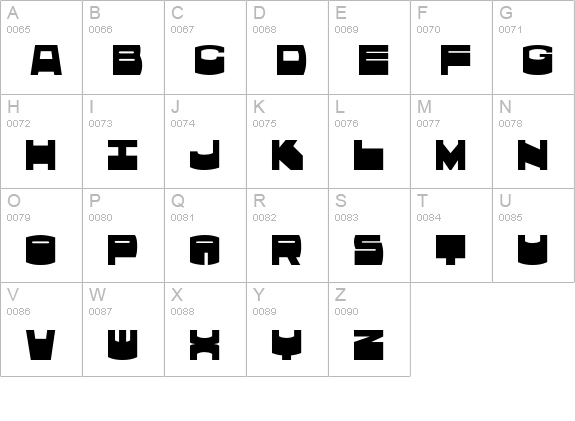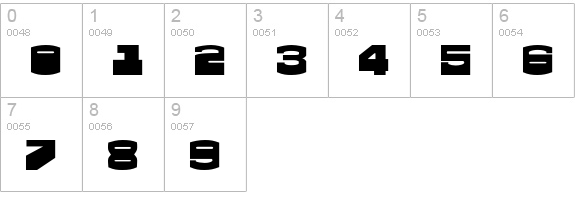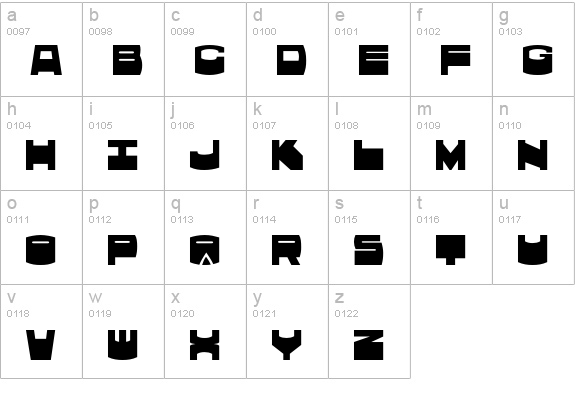
Brok Font Details
Brok font is a modern and versatile typeface that effortlessly combines sleek lines with a hint of edgy flair. Its clean and bold letterforms make a powerful statement in any design project, whether it's for branding, advertising, or editorial purposes. The font's sharp angles and unique character shapes add a touch of sophistication and style to any text. What makes Brok font even more appealing is that it is completely free to download. You can easily access this stylish font at FontsMarket.com, where you can explore its full range of weights and styles to suit your creative needs. Whether you're a graphic designer, a web developer, or a typography enthusiast, Brok font is a must-have addition to your collection. Download it now and elevate your designs with its modern and dynamic aesthetic.